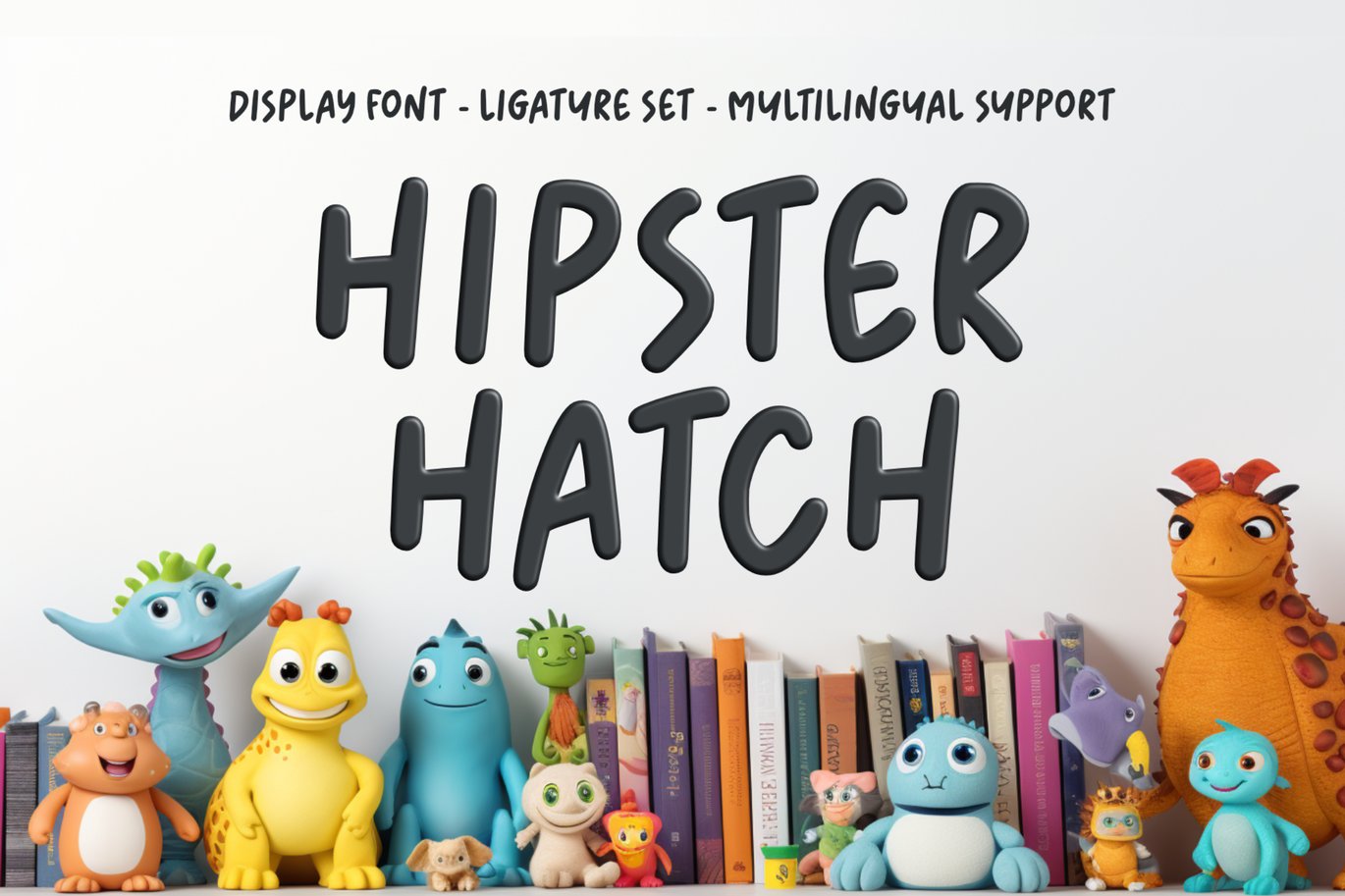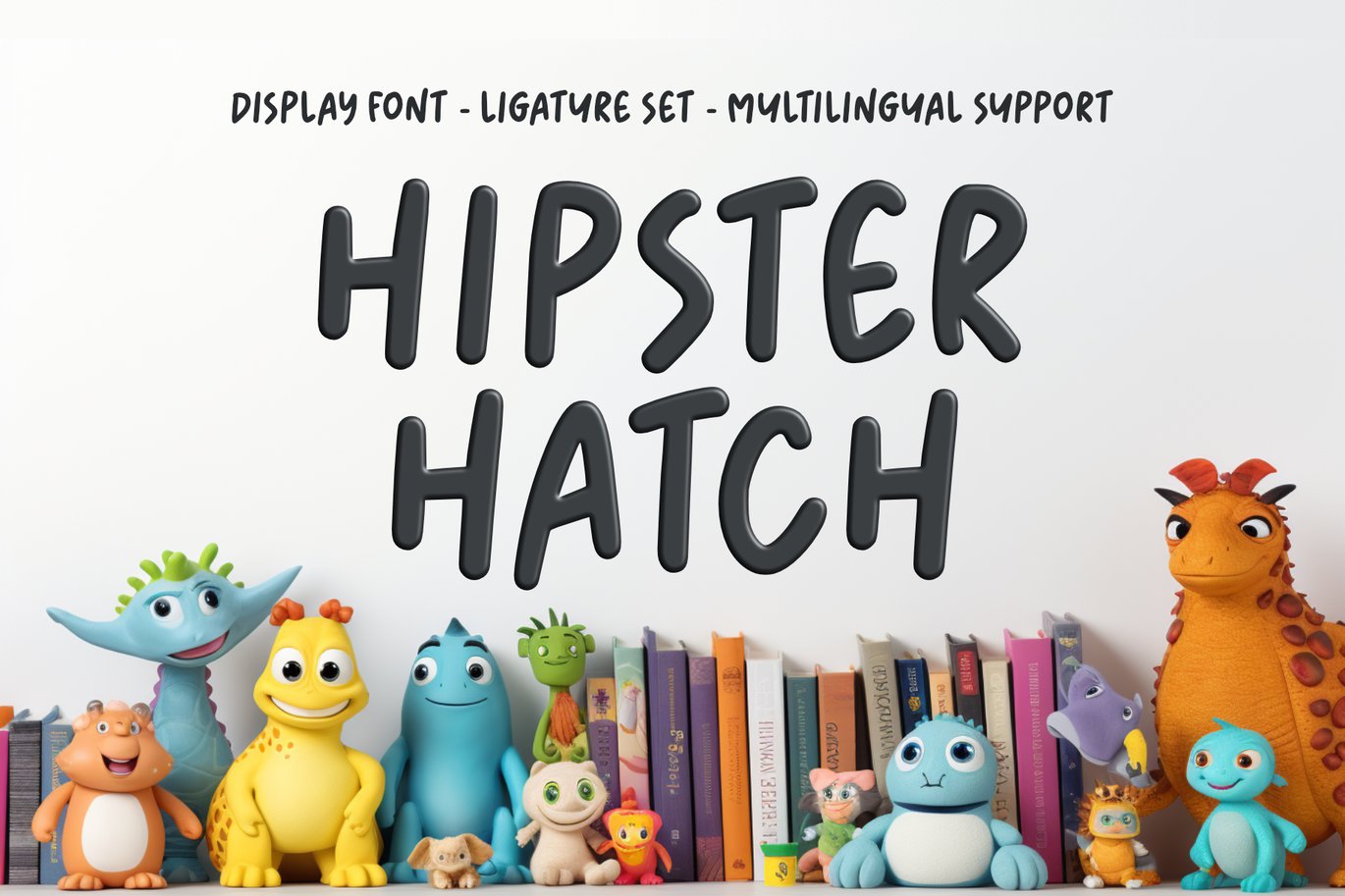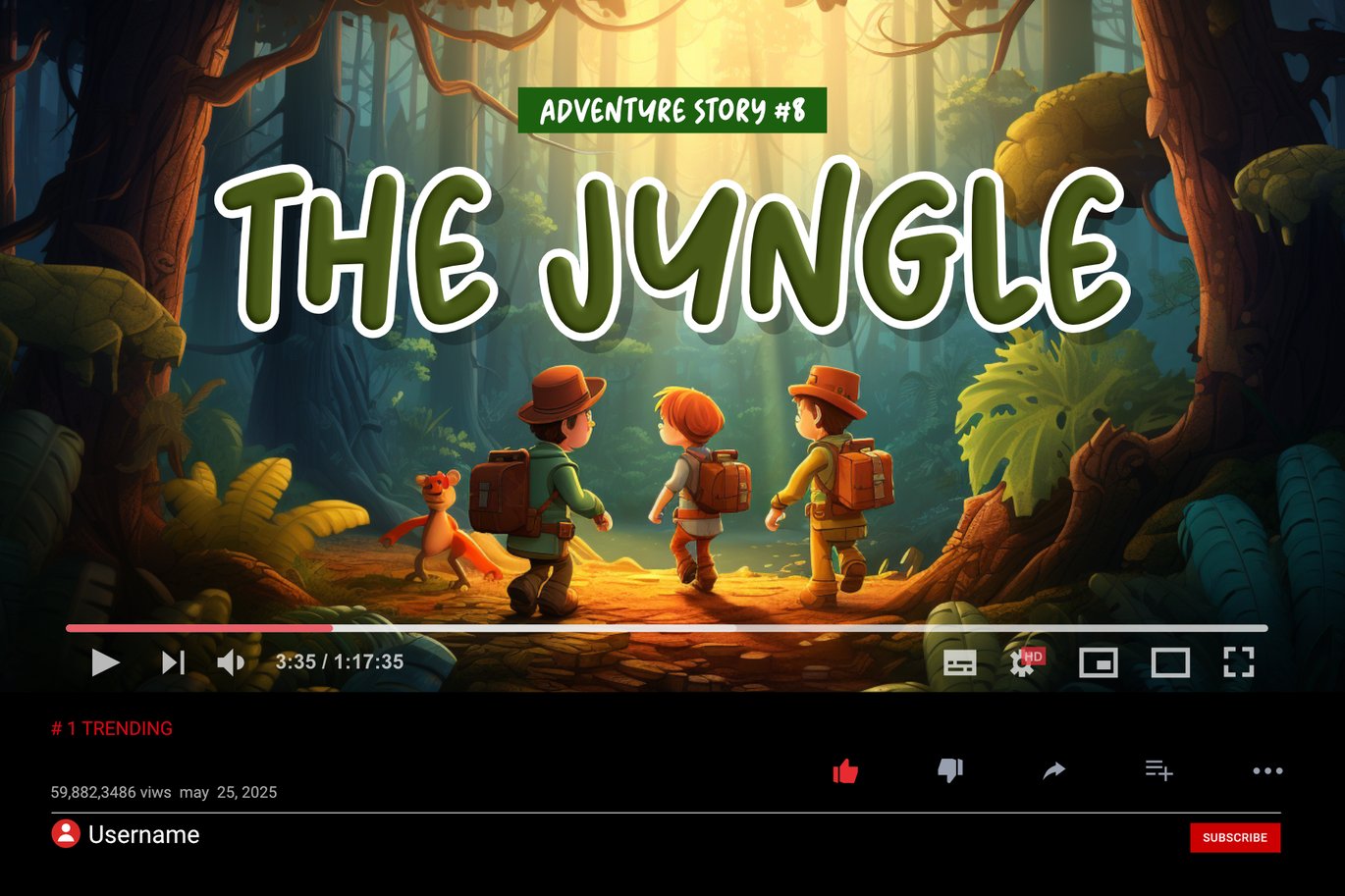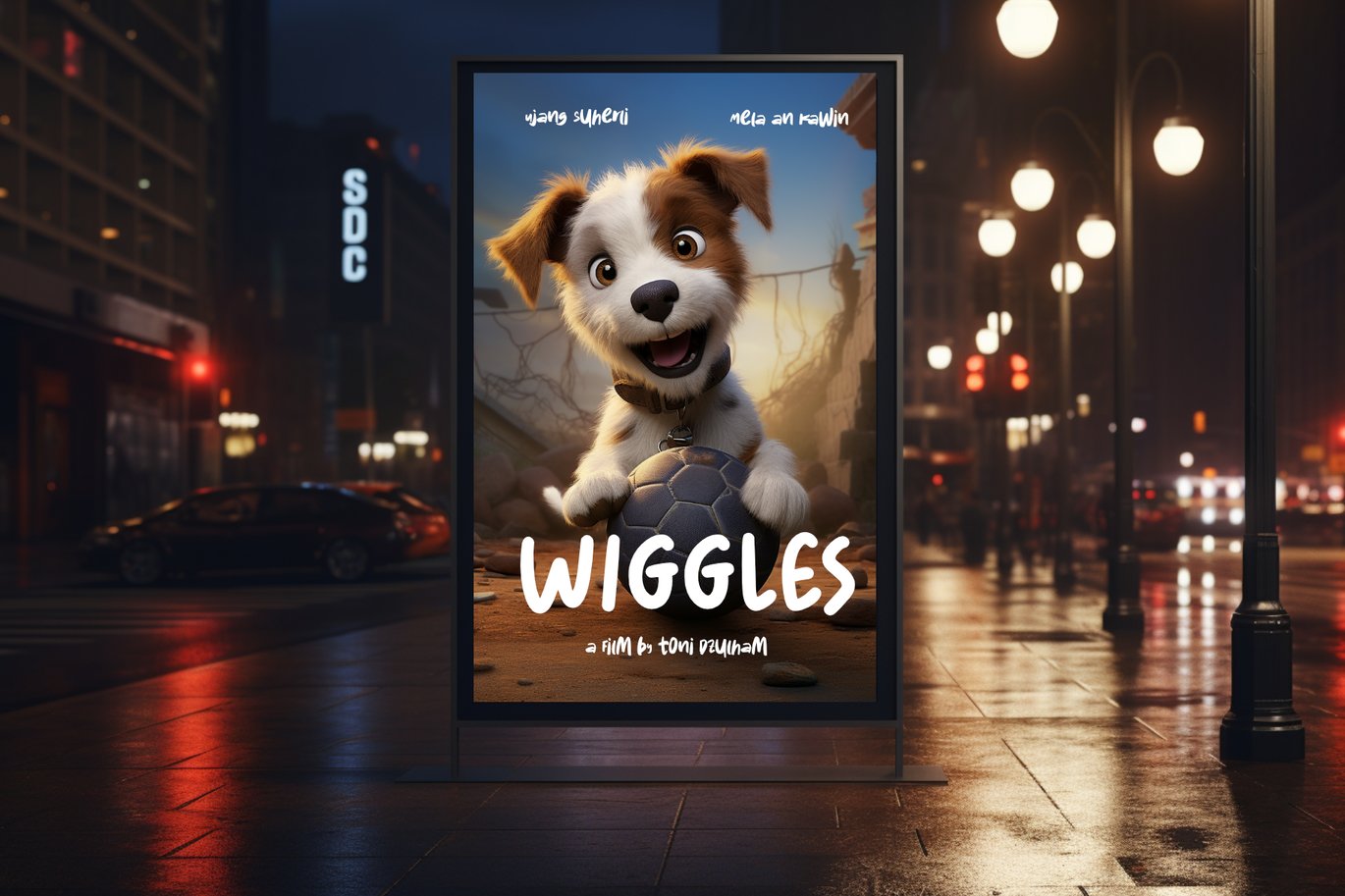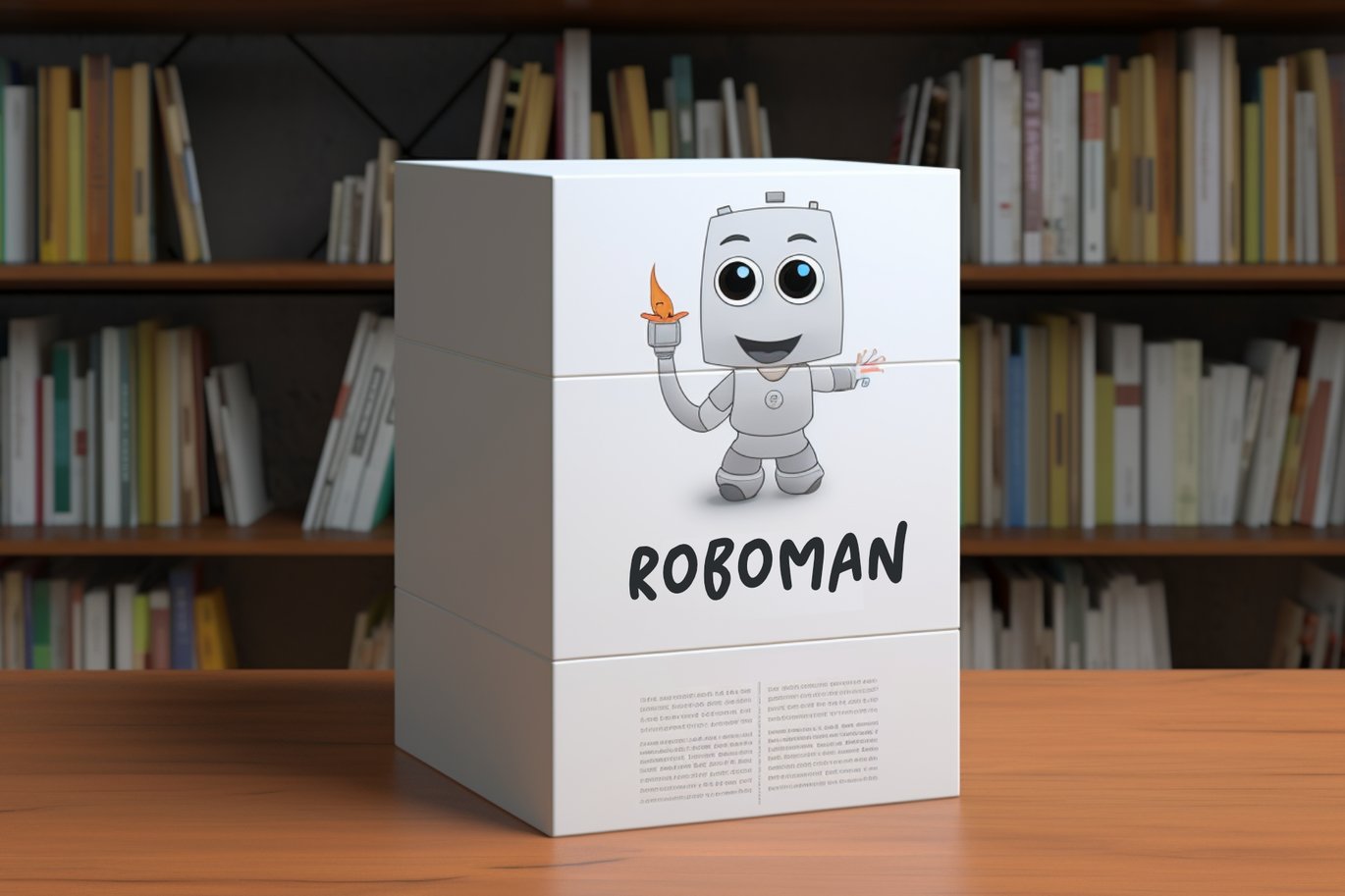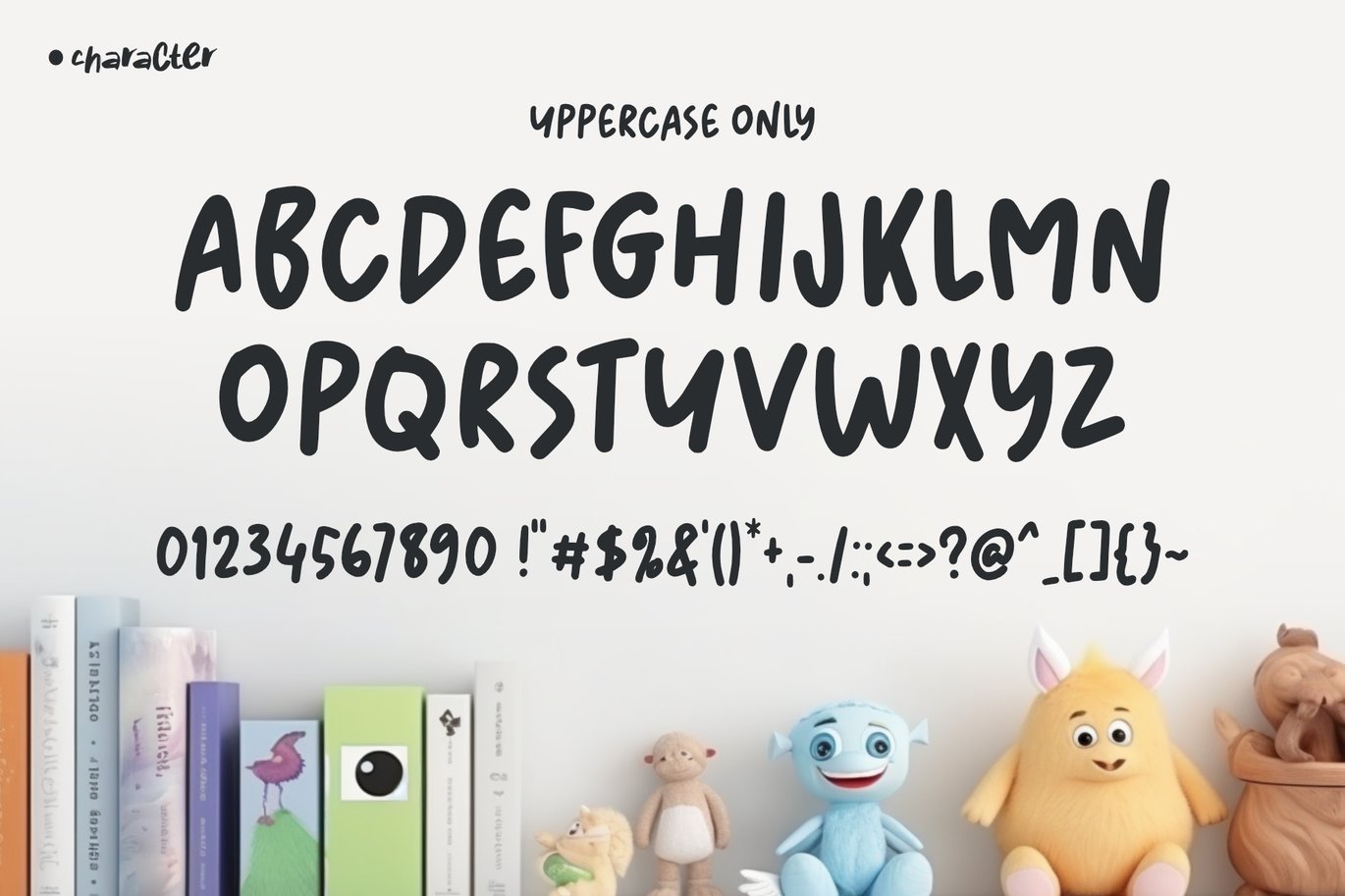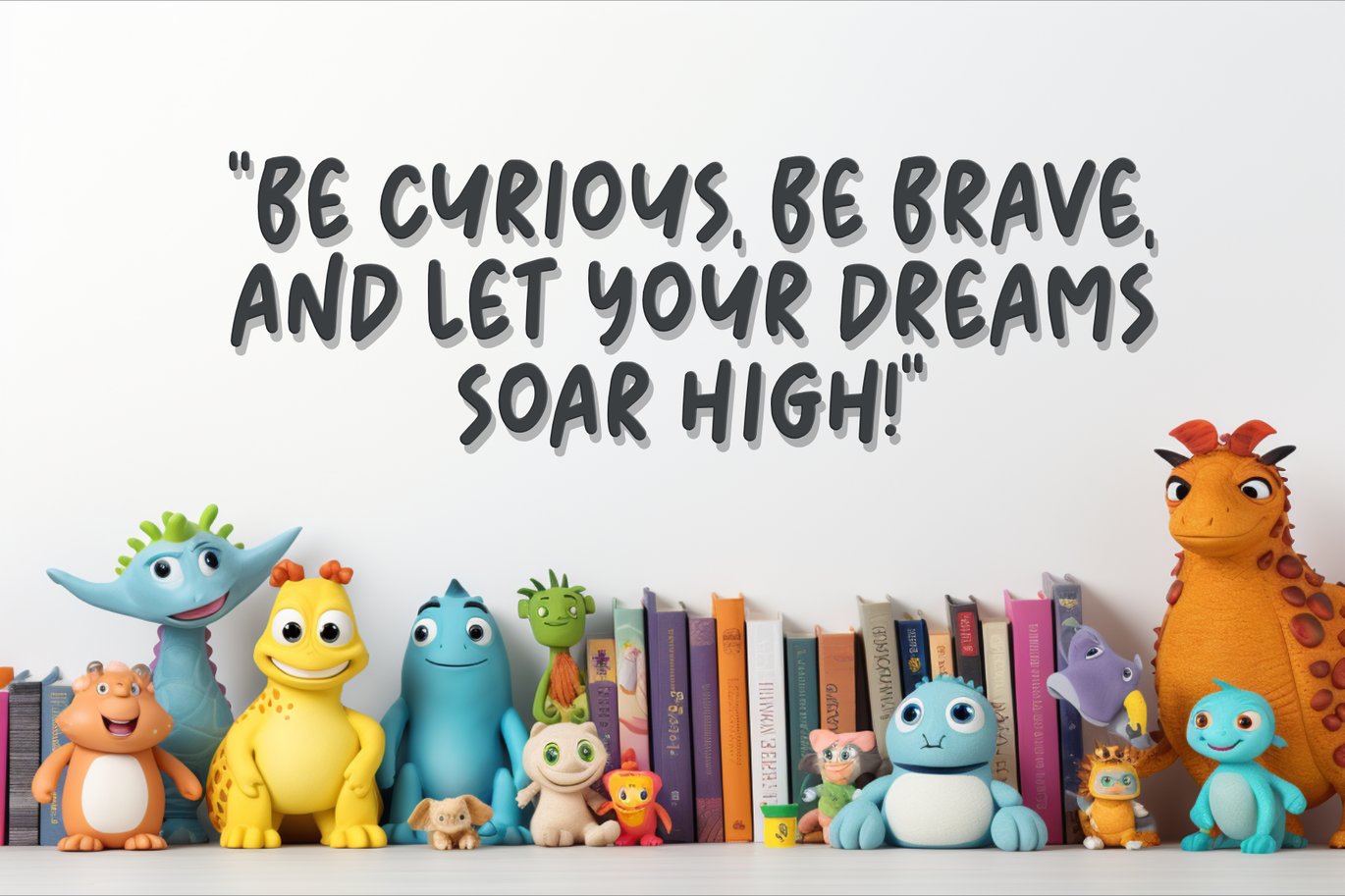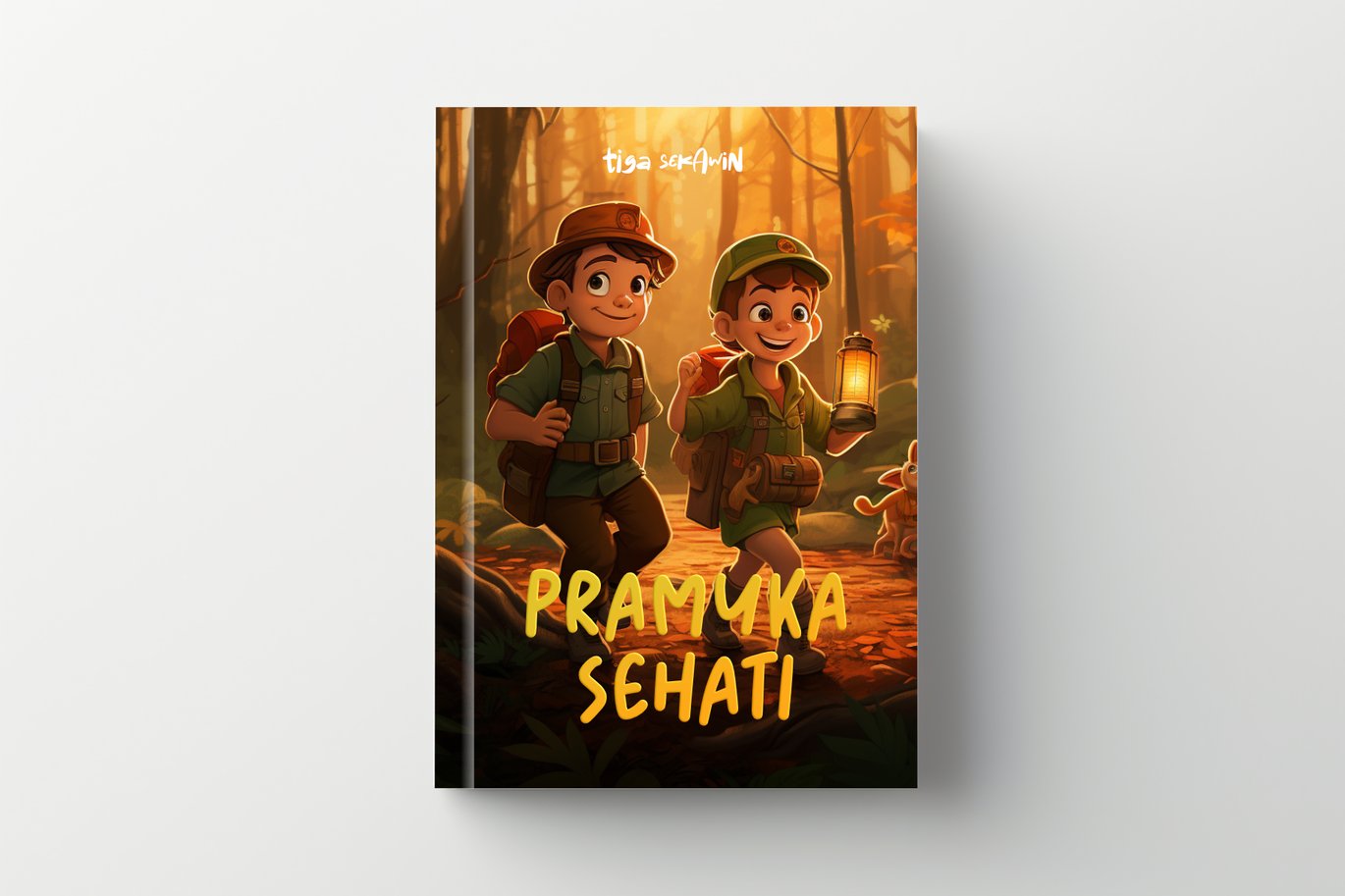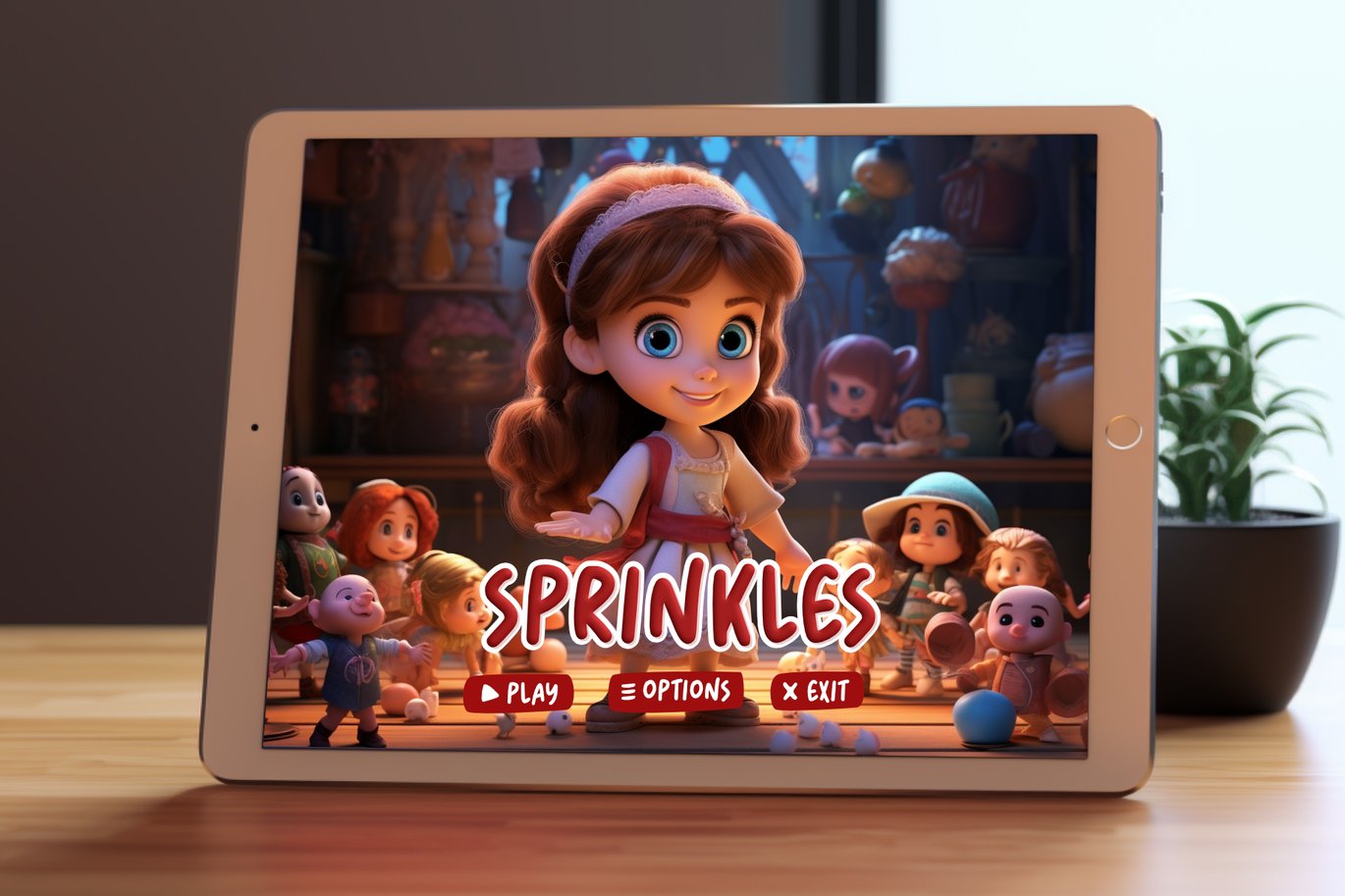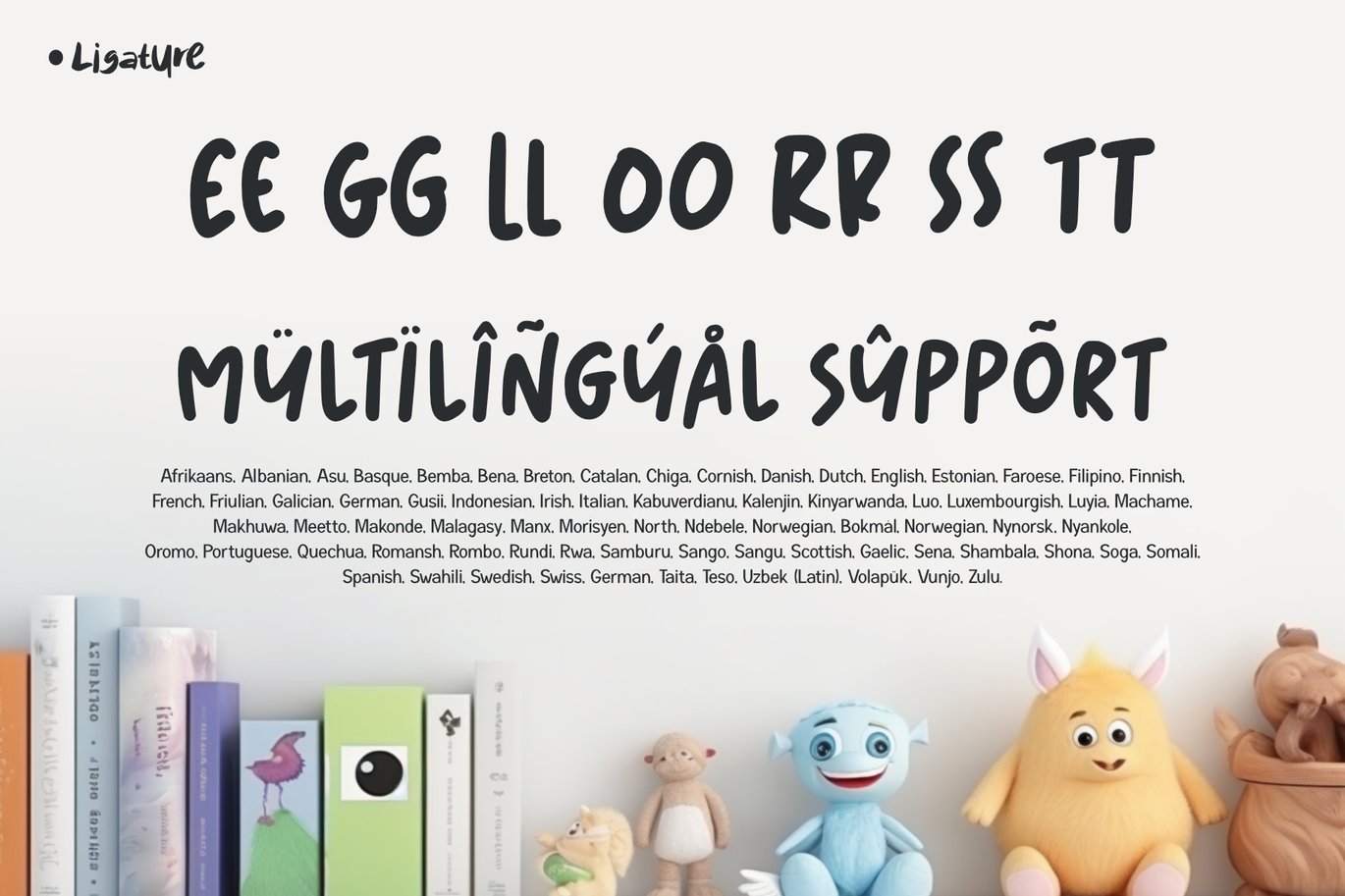
Hipster Hatch – Display Font
Hipster Hatch is a playful and vibrant font display designed specifically for designers working on children’s design projects. With its unique and quirky style, this font adds a touch of whimsy and creativity to any design. The uppercase letters give it a bold and captivating presence, making it perfect for headlines, logos, and eye-catching titles.
Hipster Hatch is all about embracing colors and bringing designs to life. With its full-color palette, each letter becomes a canvas for vibrant and cheerful combinations, making it an ideal choice for projects targeting children. Whether it’s a picture book, a poster, or a website, this font will instantly captivate young minds and spark their imagination.
So if you’re a designer looking to add a dash of fun and charm to your children’s design projects, Hipster Hatch is the perfect choice. Let this font hatch your creative ideas and bring smiles to the faces of both children and adults alike.
- Ligature Set
- Multilingual Accent